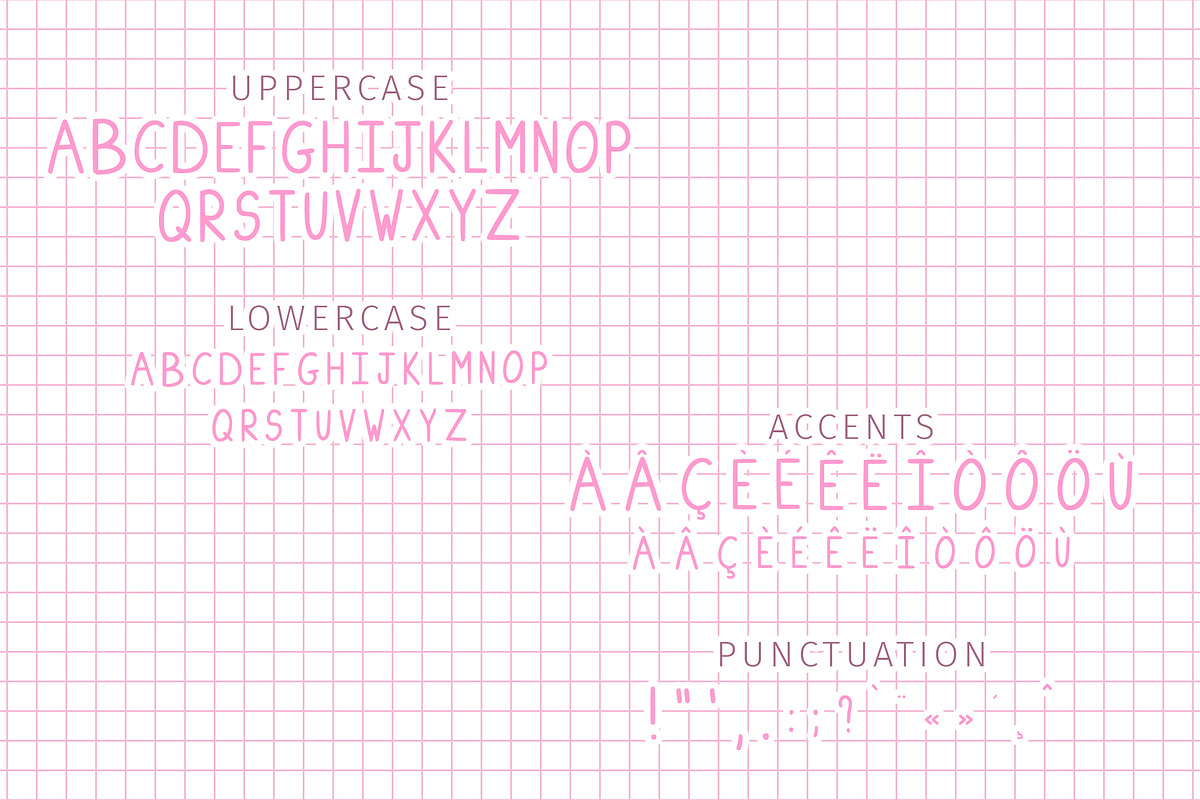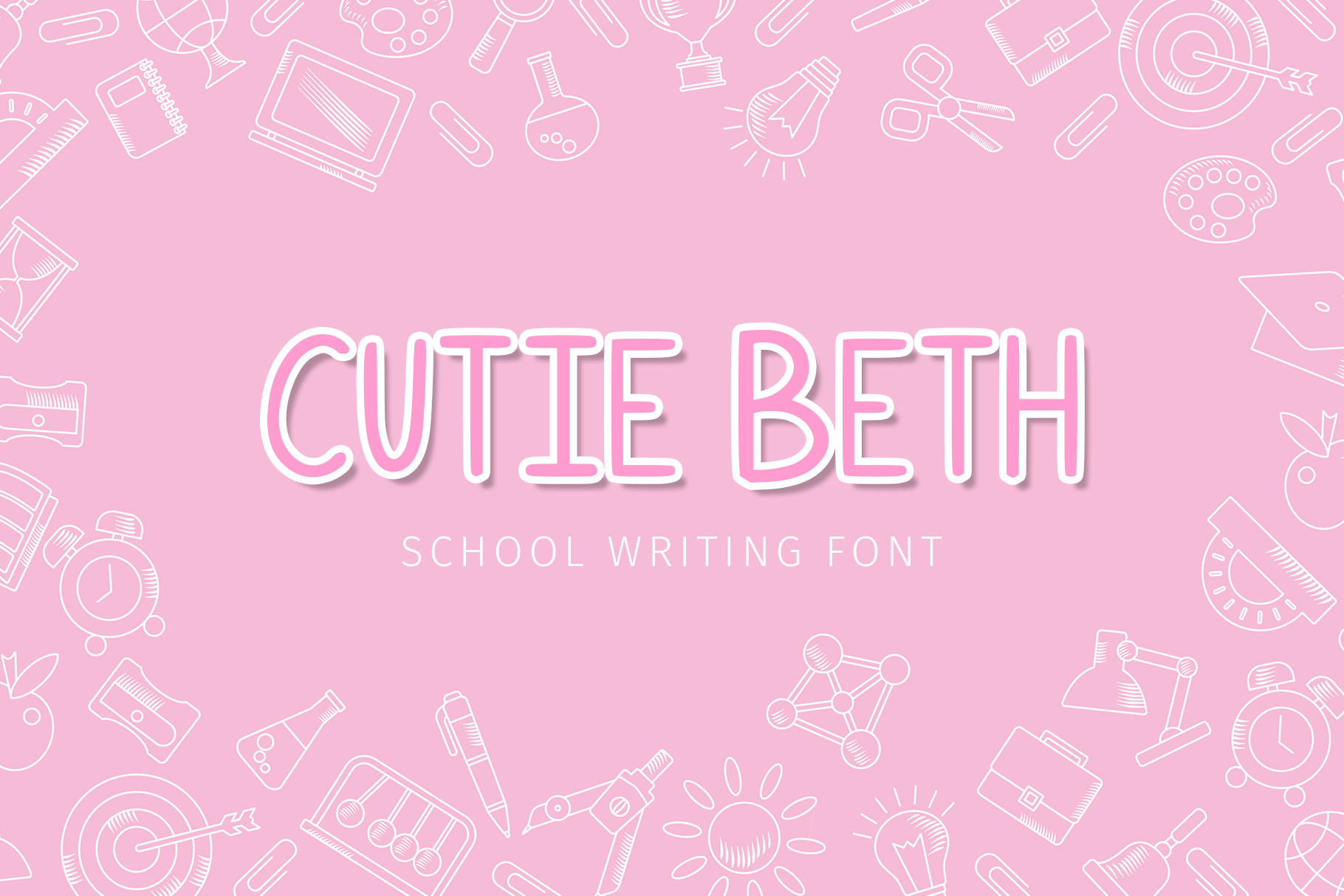
Cutie Beth Font
Discover a soft and modern typeface, perfect for school, educational, or creative projects. With its rounded shapes, sans-serif style, and adorable appearance, it ensures easy readability while adding a playful and warm touch to your texts. Ideal for activity books, educational materials, or even invitations and children’s posters!